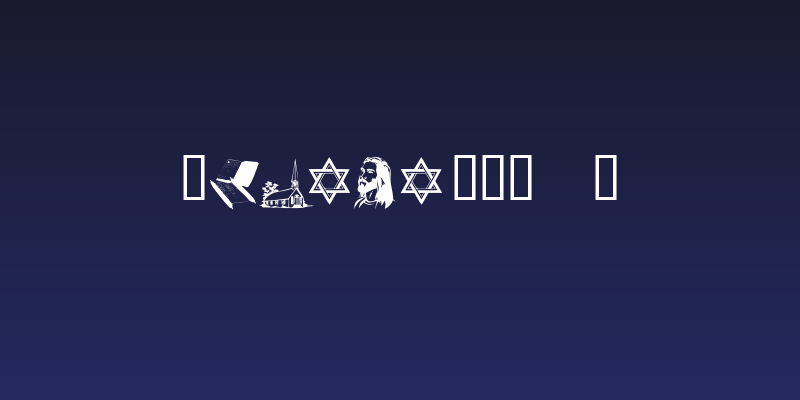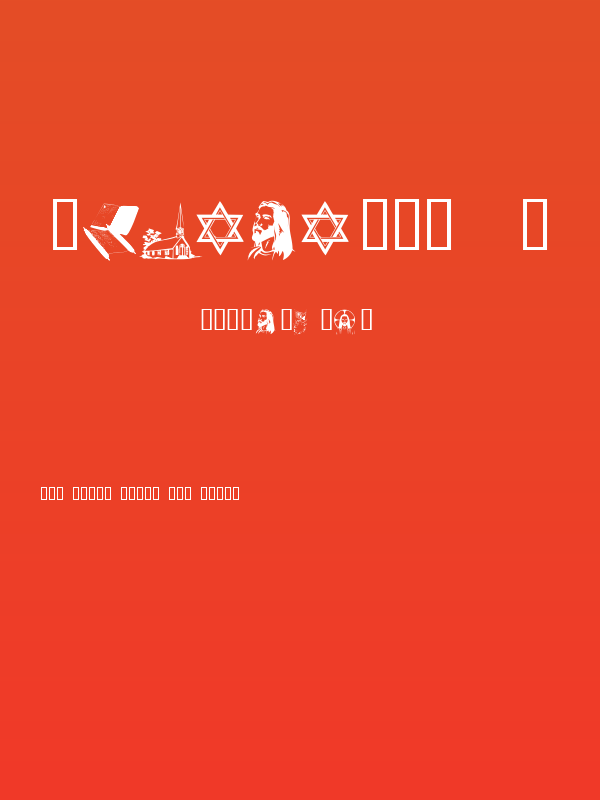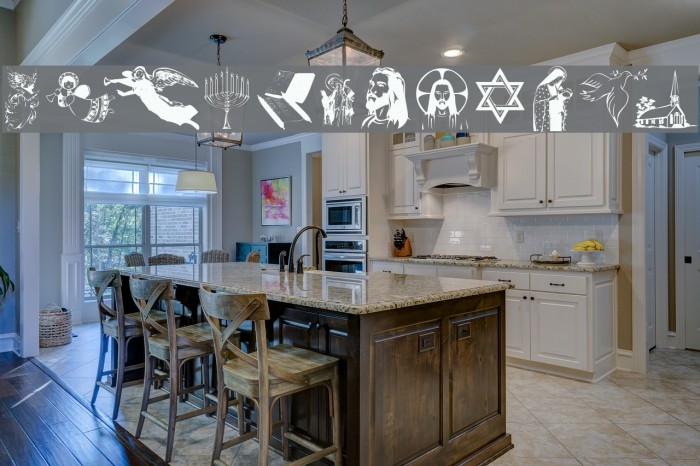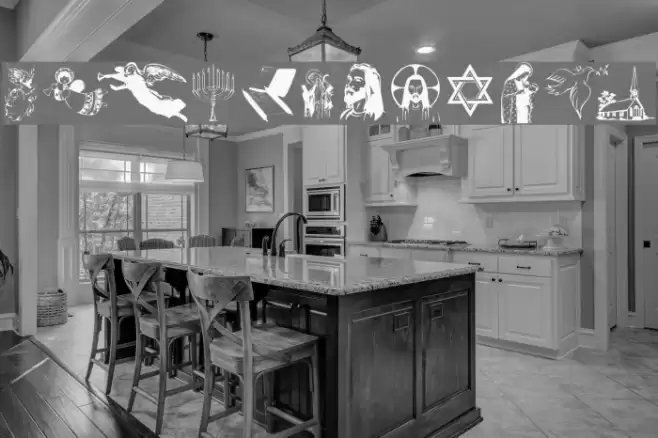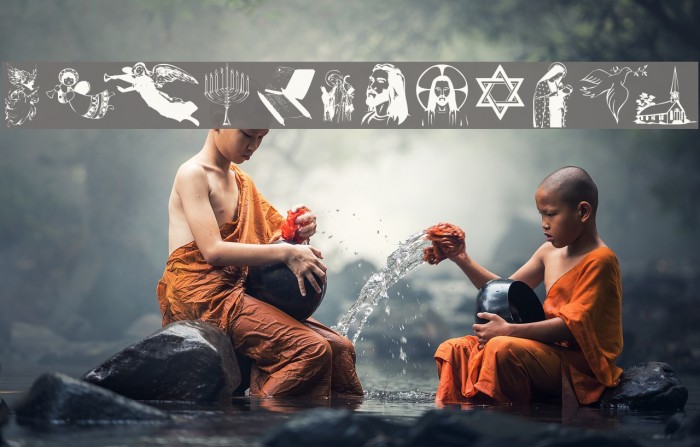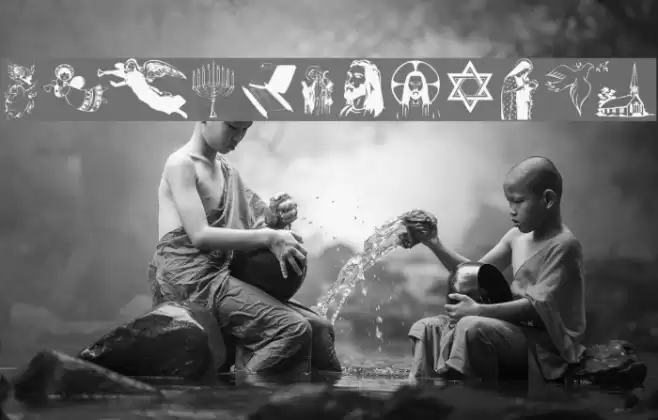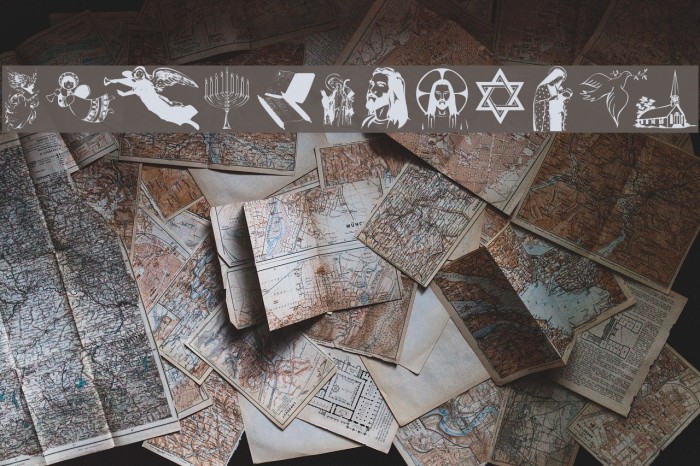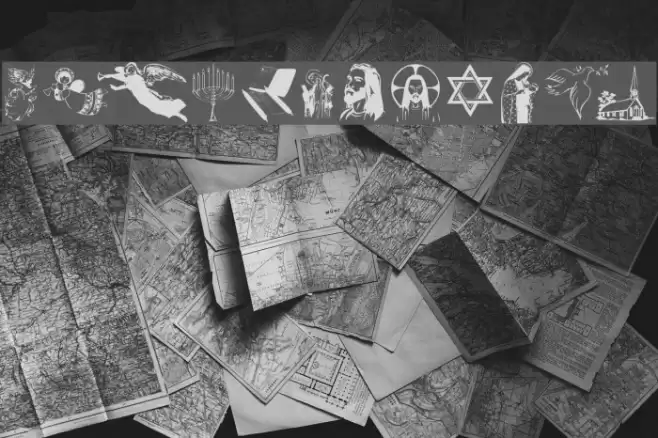
Religious 1 Font
Religious 1 Description
A decorative dingbat font featuring a variety of religious-themed illustrations, including angels, menorahs, tablets, portraits, symbols, and places of worship. Each glyph is a unique pictorial representation rather than a standard alphanumeric character.
| Overall Style | Decorative, Thematic |
| Use Case | Icons, Decorative elements, Themed graphics |
| Proposed Projects | Religious event flyers, church bulletins, educational materials, themed invitations, decorative borders. |